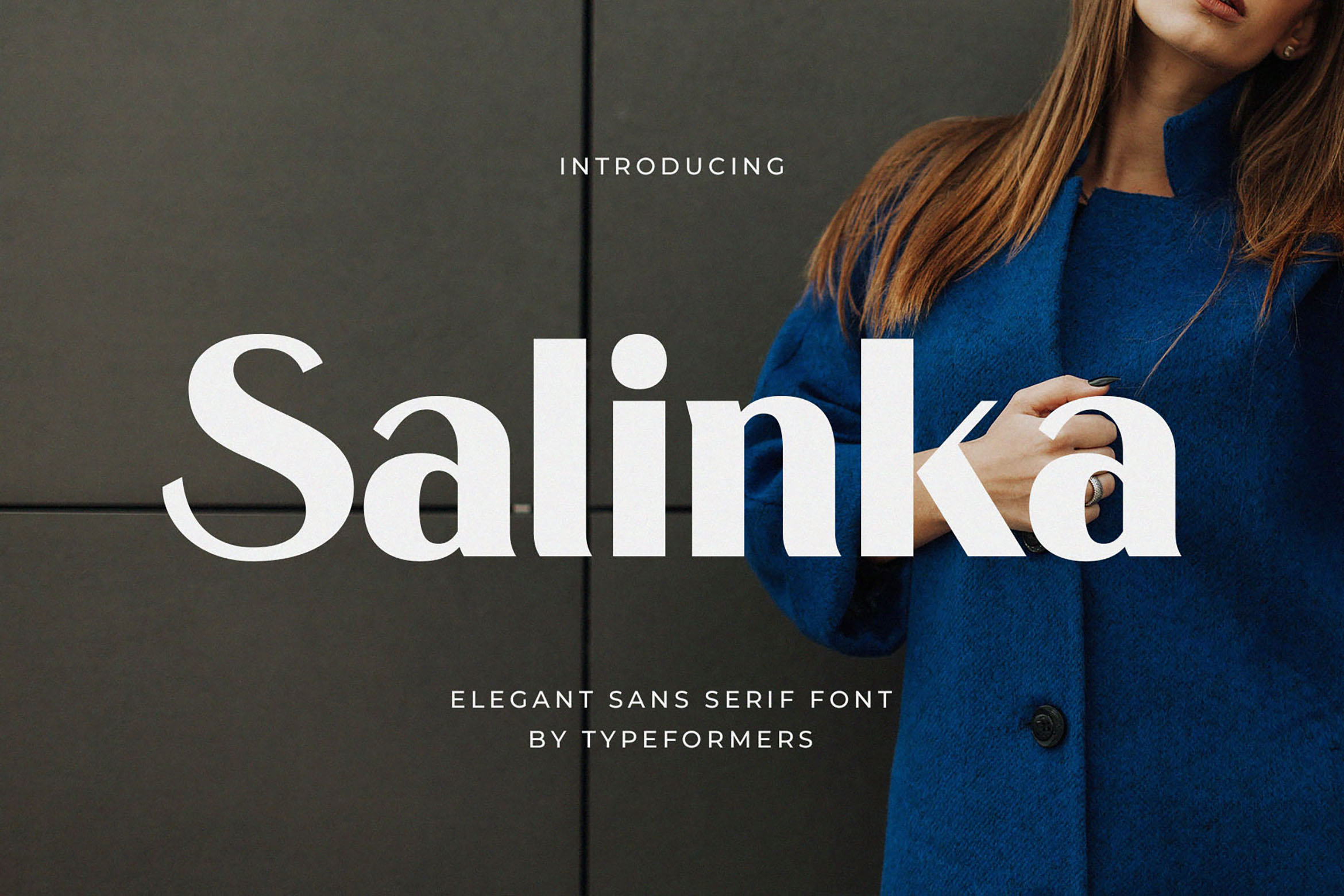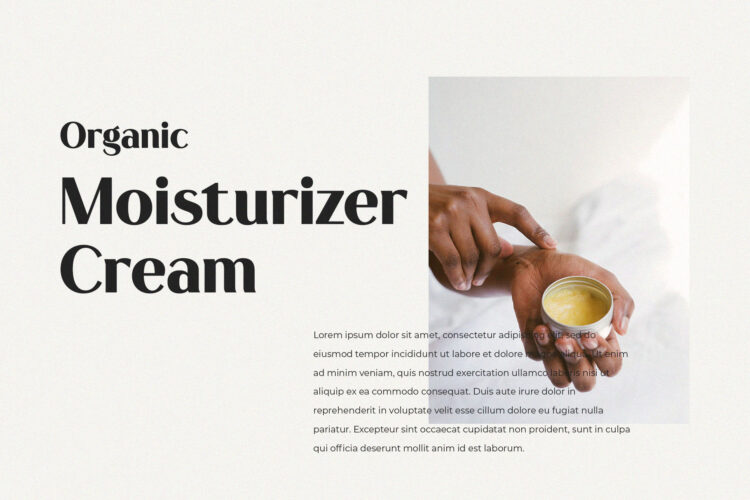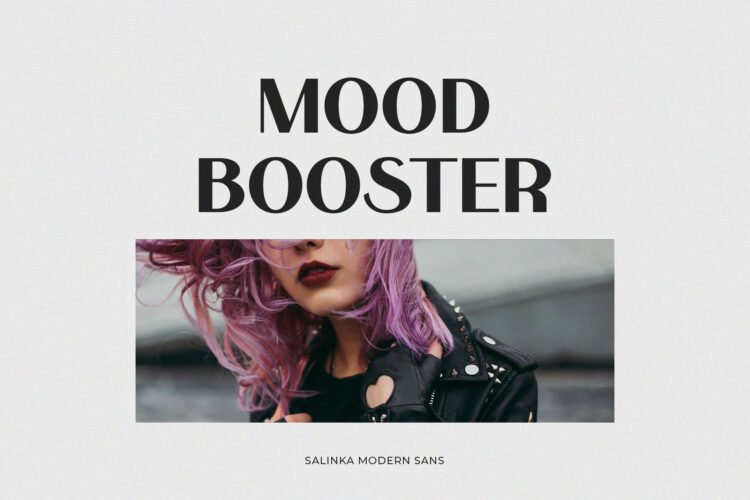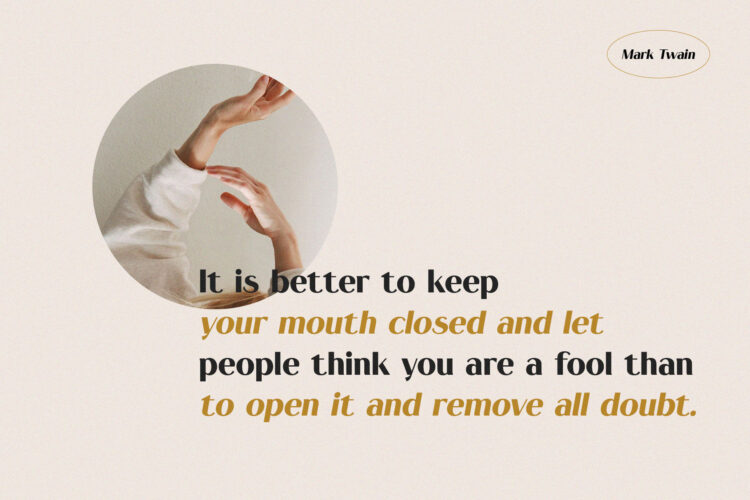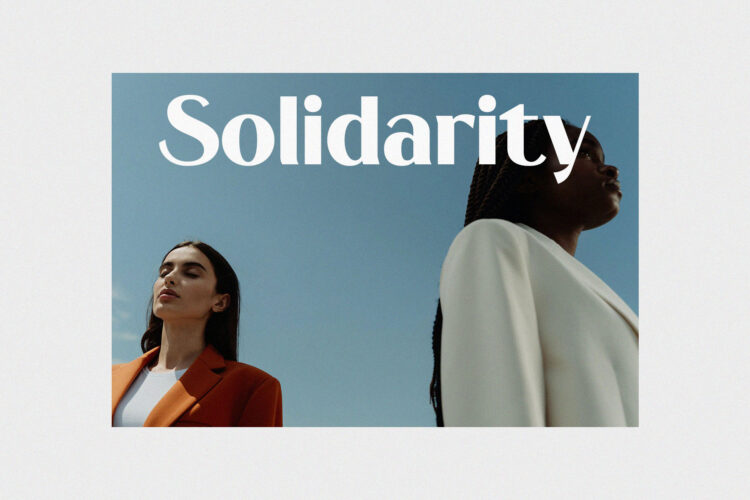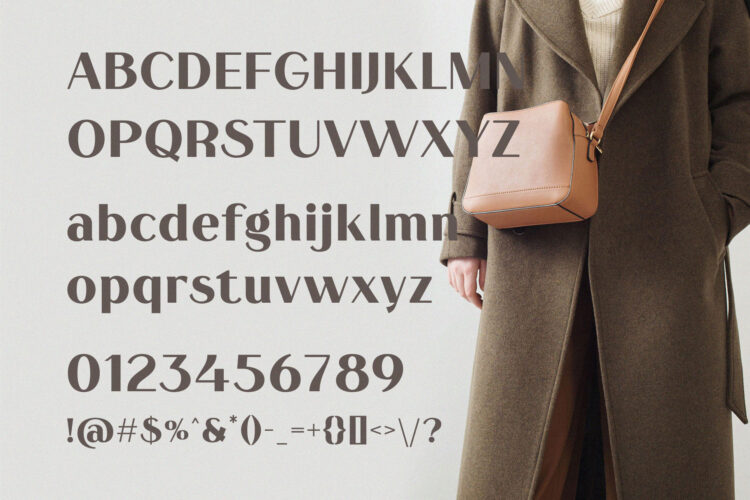
Introducing Salinka – Elegant Sans Serif Font.
Salinka is a modern and simple font, best used as a display for headings, logos, branding, magazines, product packaging and invitations.